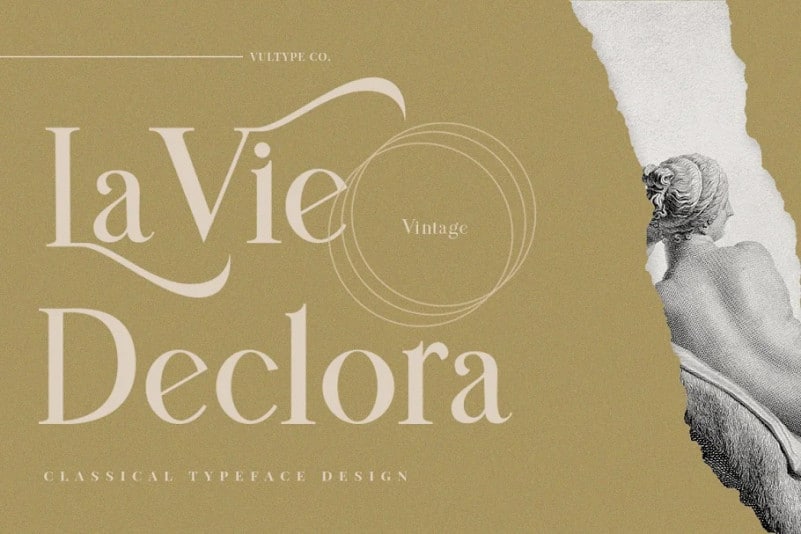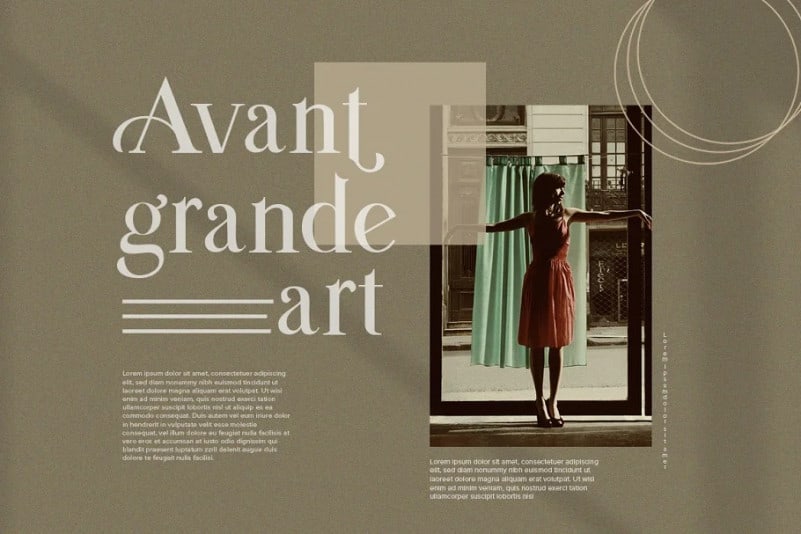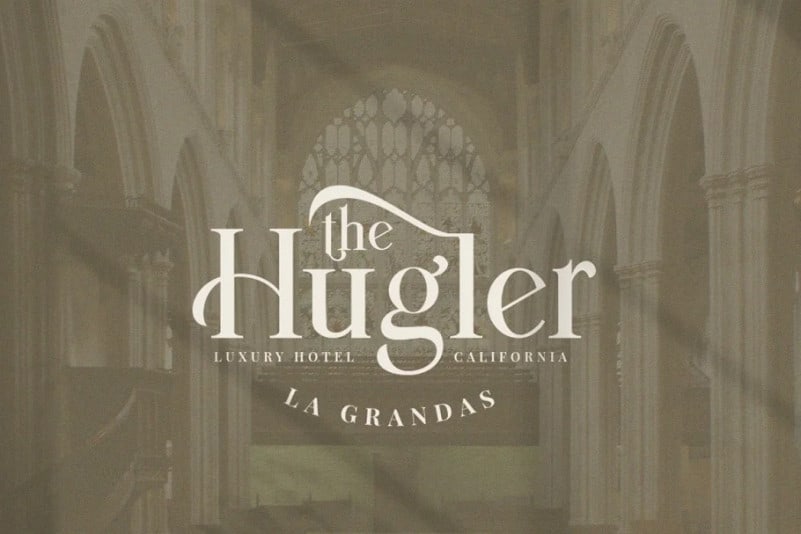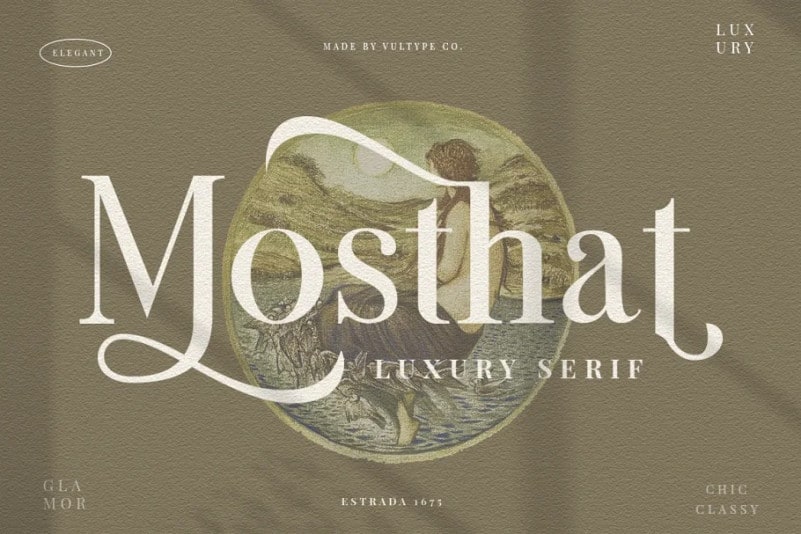
Mosthat Serif Font – A font that has a unique style, playfull and beautifull, then it can also be made elegant or vintage. A minimal contrast look that has been synonymous with fashion for decades. This font is both modern and nostalgic and works great for logos, mastheads and pull quotes. It pairs beautifully with a minimal sans serif or light script font.